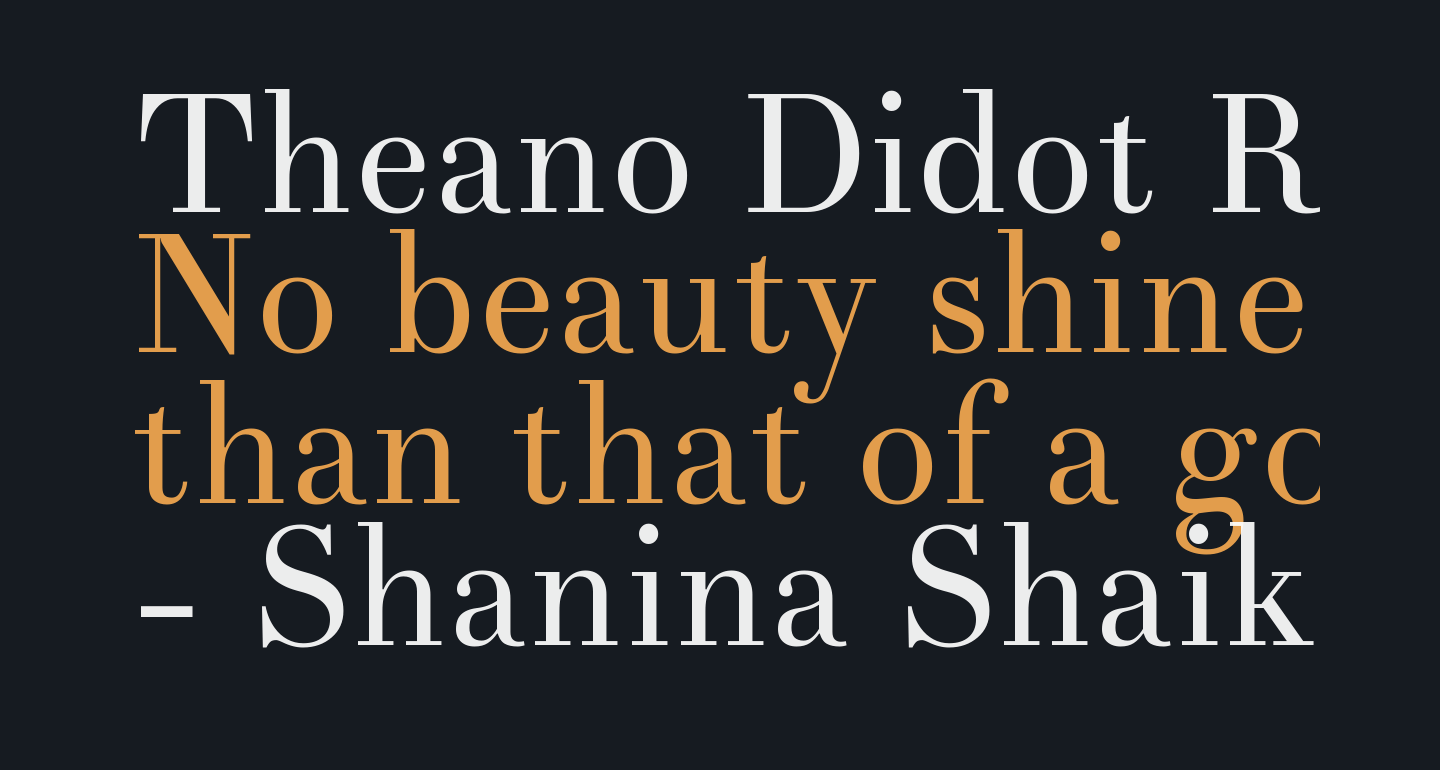
Closest Font To Didot
Each of our meticulously built typefaces is the result of years of teamwork at typofonderie. The classification is known as modern, or didone. Bodoni typeface, on the other hand, is very close to this font.
The Classification Is Known As Modern, Or Didone.
Didot Is A Group Of Typefaces.the Word/Name Didot Came From The Famous French Printing And Type Producing Didot Family.
What are some typefaces that similar to didot.? What fonts are similar to didot lt pro bold italic? There are many versions of bodoni available.
As Rich And Light As The Pastry That Shares Its Name, Brioche Is An Elegant Serif.
Which Font In The Google Fonts Library Looks Like Didot Or Bodoni?